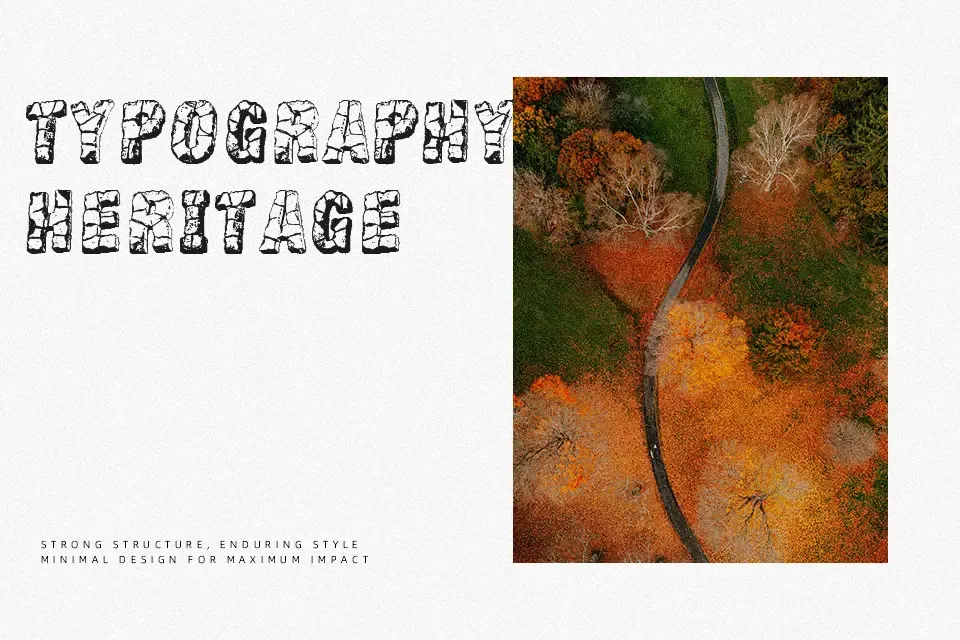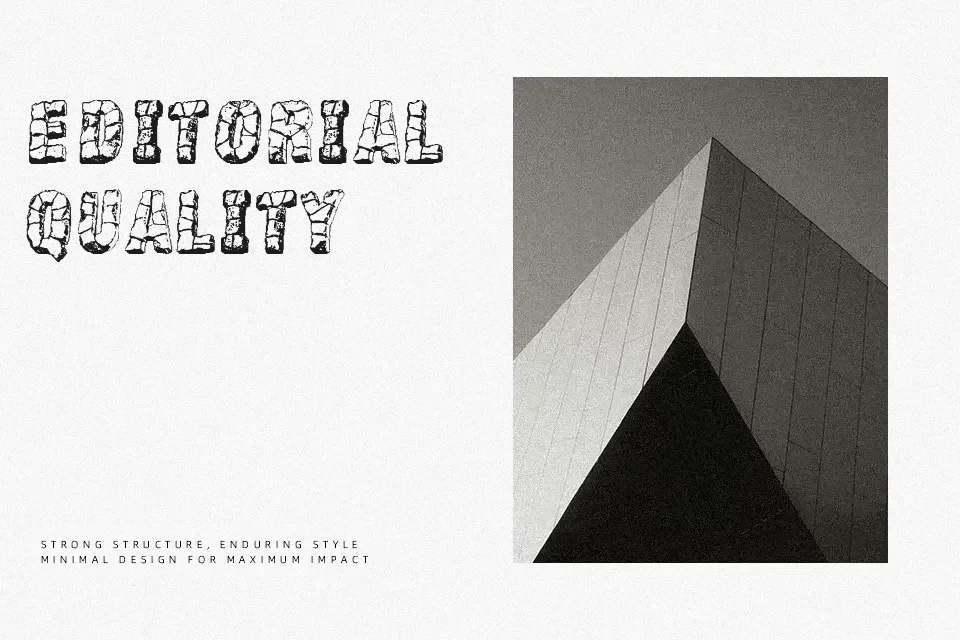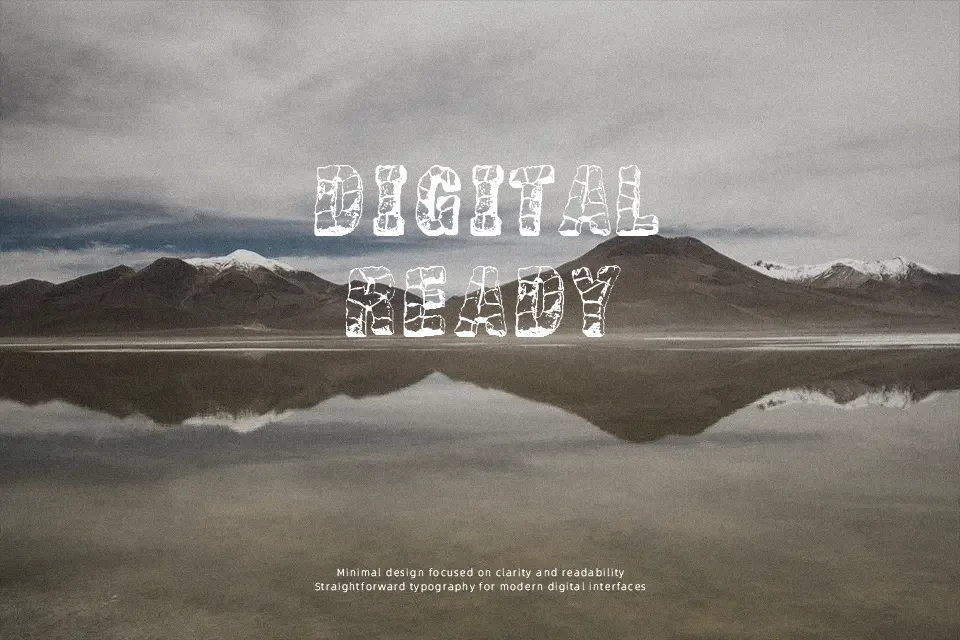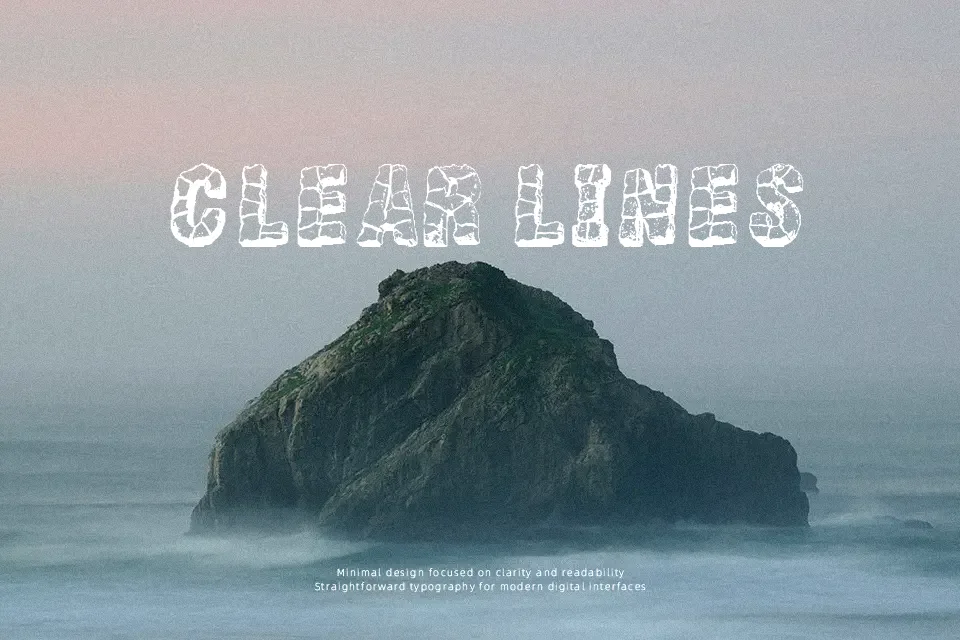
Stone block Font
Stone block Font features massive rectangular silhouettes, ultra-thick uniform strokes, and tightly enclosed counters that evoke solid masonry. The typeface relies on compact character spacing and consistent vertical proportions to build an imposing architectural presence across display settings. While these dense forms maximize visual impact on music festival banners, video game branding, and streetwear packaging, the heavy geometry causes enclosed glyphs to fill in rapidly at smaller point sizes. Consequently, the letterforms remain difficult to decipher in continuous reading contexts. For optimal clarity, the design functions most effectively when set in short, uppercase headlines above thirty-six points.
Best For: arcade gaming titles, music festival banners, streetwear packaging, action movie titles
Not Ideal For: continuous body text, mobile interface labels, legal contracts, dense spreadsheet tables
Perfect for gaming, headline, and logo, with a bold and decorative style.